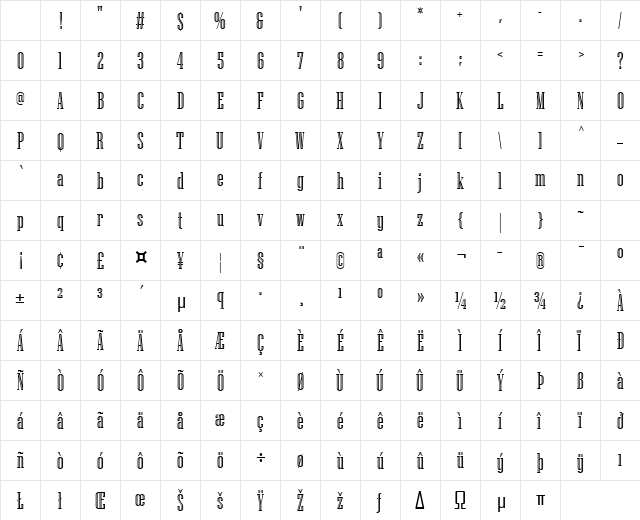
Complete Niagara Engraved Regular glyph index. Displaying only characters natively supported by Niagara Engraved Regular font.
Niagara Engraved is built around its visual character rather than neutral utility - its distinctive forms are designed to make an impression at display sizes.
Font Pairing: Pair with a clean neutral sans-serif for body copy to let Niagara Engraved's character lead without overwhelming the composition.
Pro Tip: Use Niagara Engraved exclusively at display sizes - it was designed to be seen, not read at length. Let a neutral companion handle body copy.